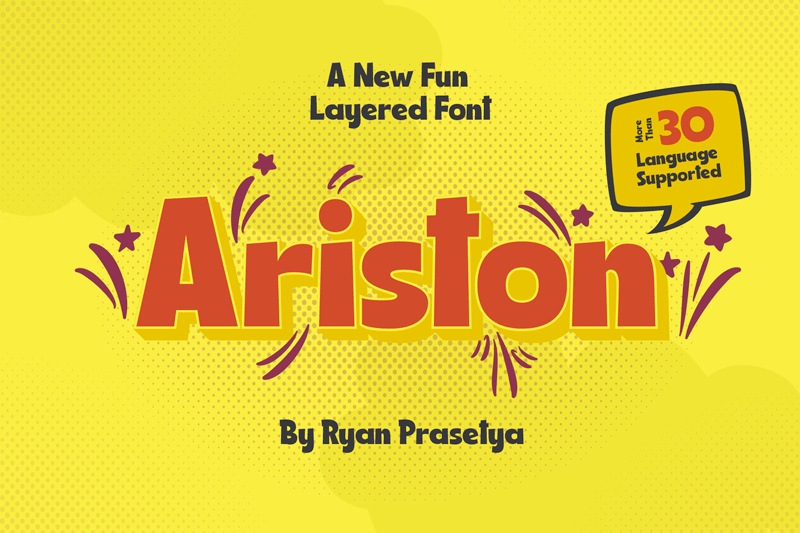
Font name: | Ariston Comic |
Author: | Ryan Prasetya |
Ariston is a new layered font, created for fun and for funny moment. This font created special for kid or youth tittle. If you're kid content creator this font is very suitable for you. All features like layer, multilingual support and others available on full version. Please drop me an message or email for any furter information email lostvoltypefoundry@gmail.com Thanks! |